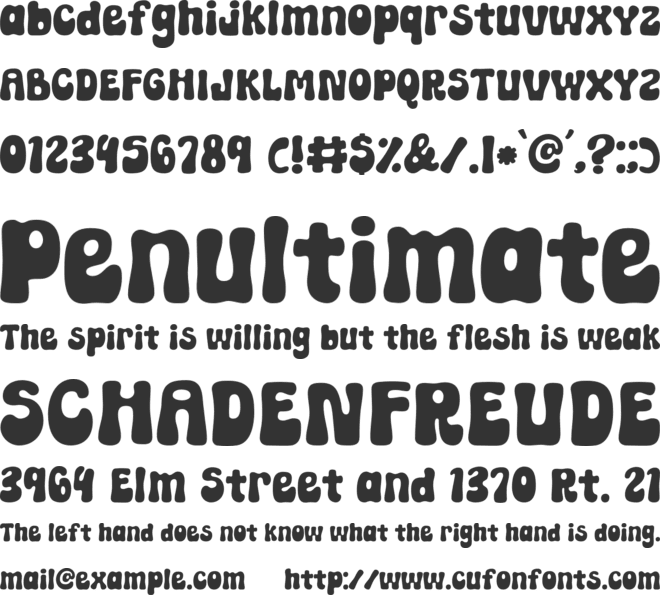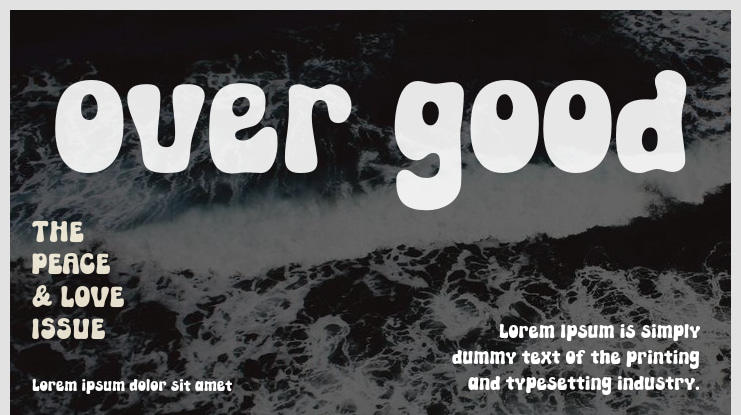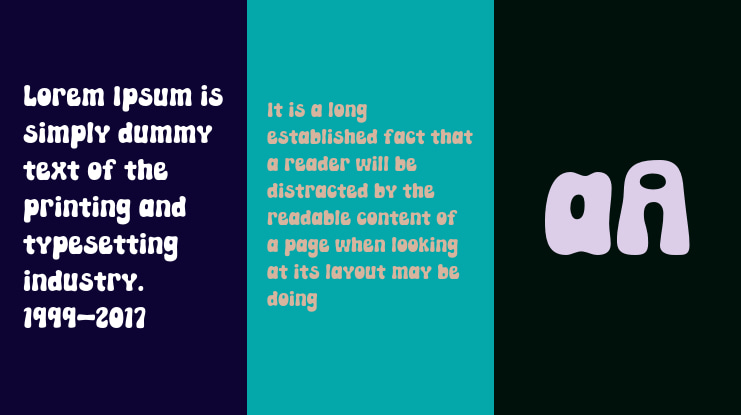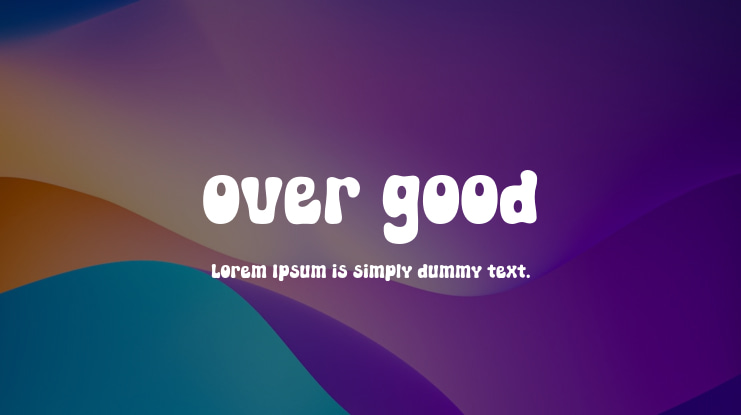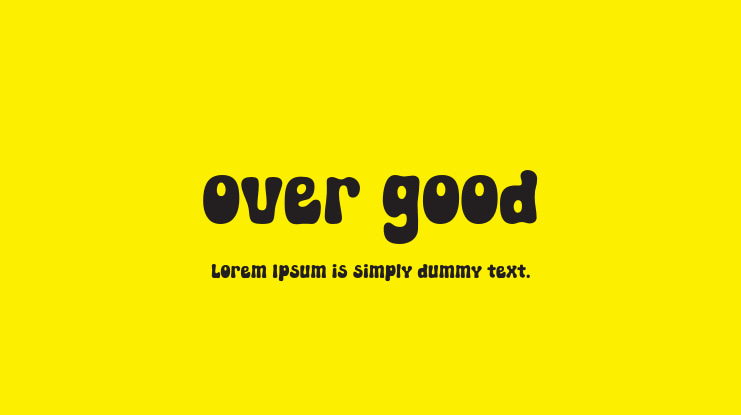
over good Font
Aldi Ramdan
Over Good is a font that emanates a remarkable retro vintage aesthetic sure to evoke nostalgia. Utilize this display font to infuse a unique retro touch into any design project you envision. Expertly crafted to become a beloved choice, this font has the potential to elevate your creative ideas to new heights!